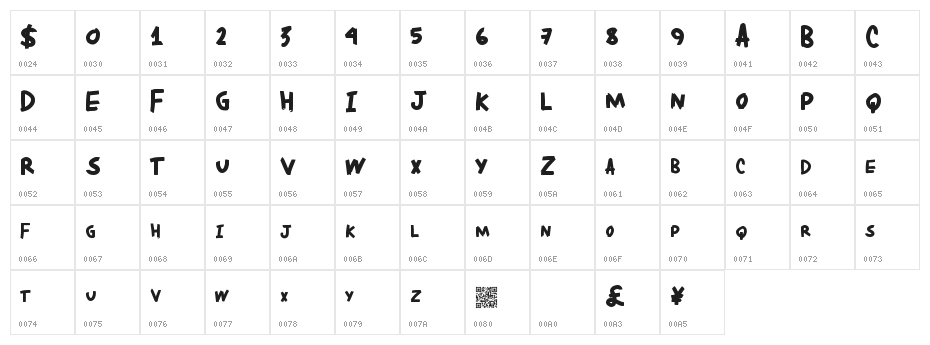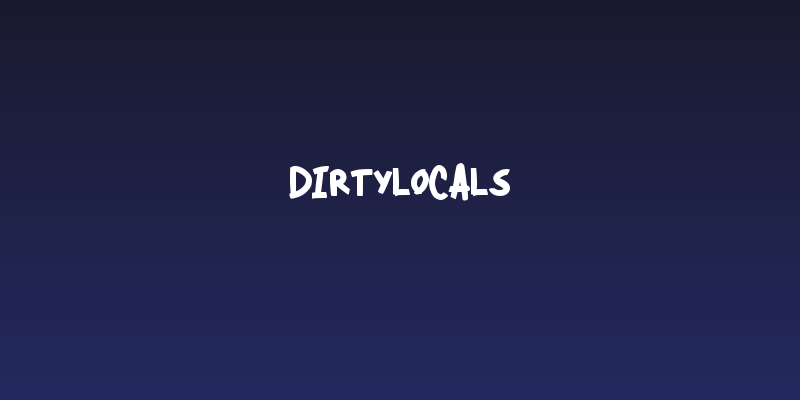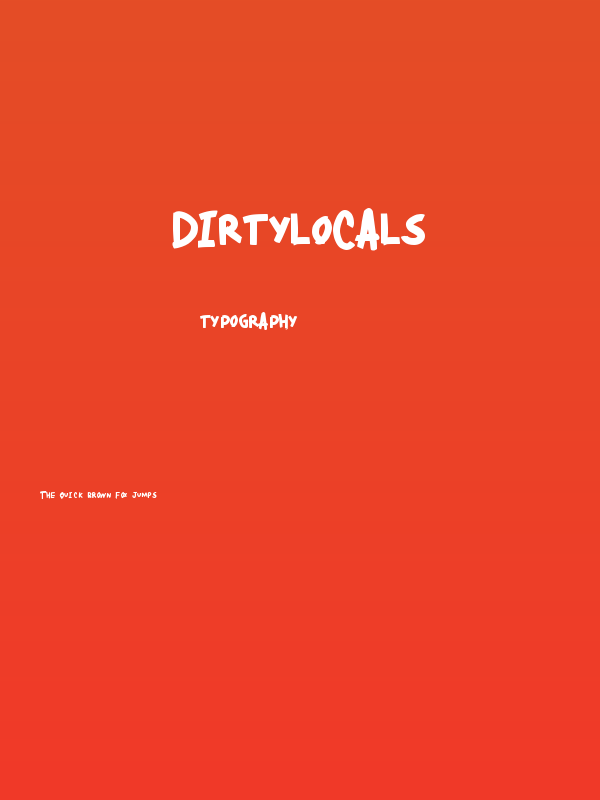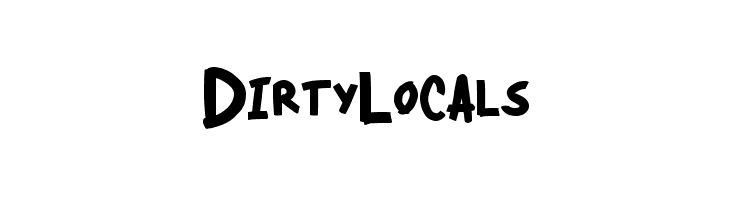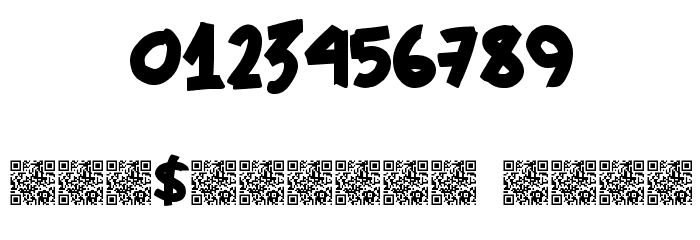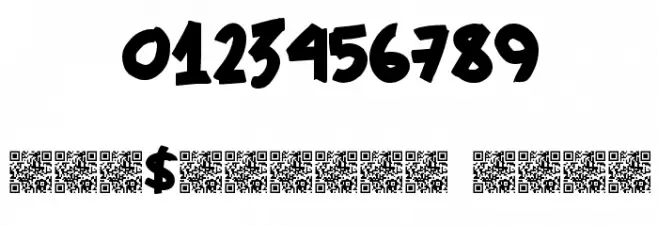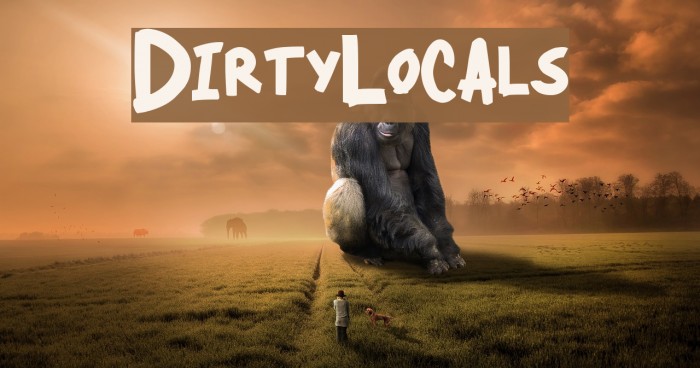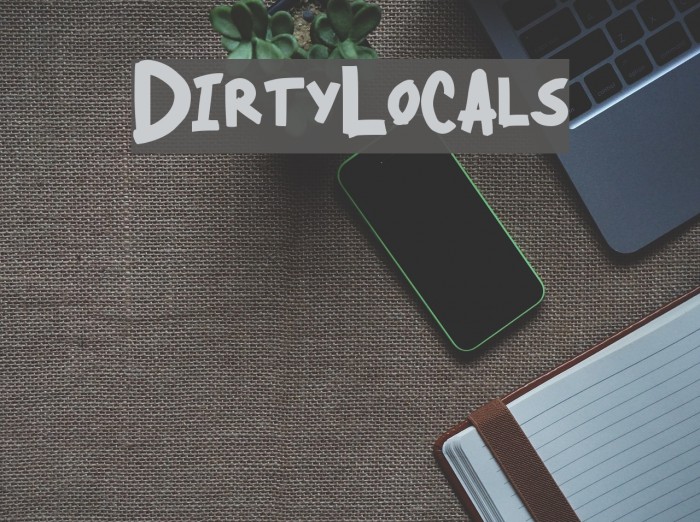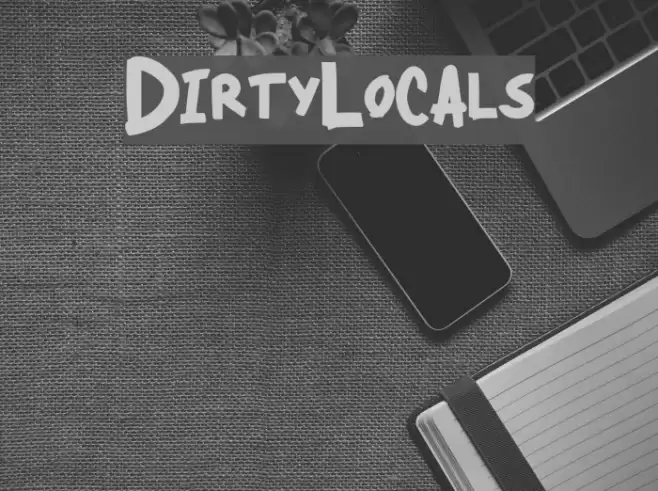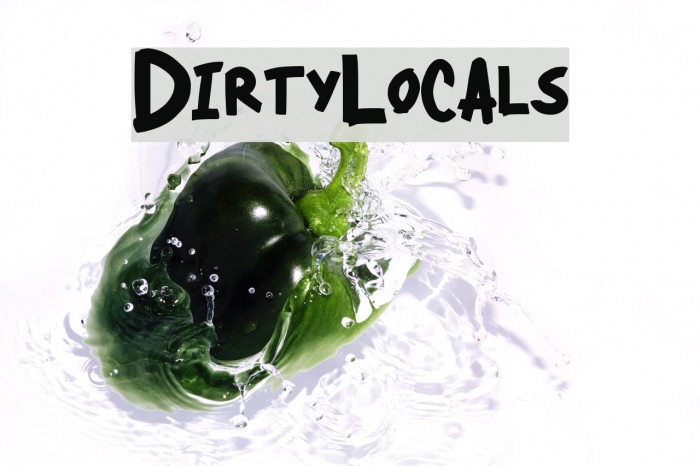
DirtyLocals Font
✎ Graffiti
| Style général | Modern, Decorative |
| Projets proposés | Perfect for street art designs, youth-oriented branding, event posters, and creative social media graphics. |